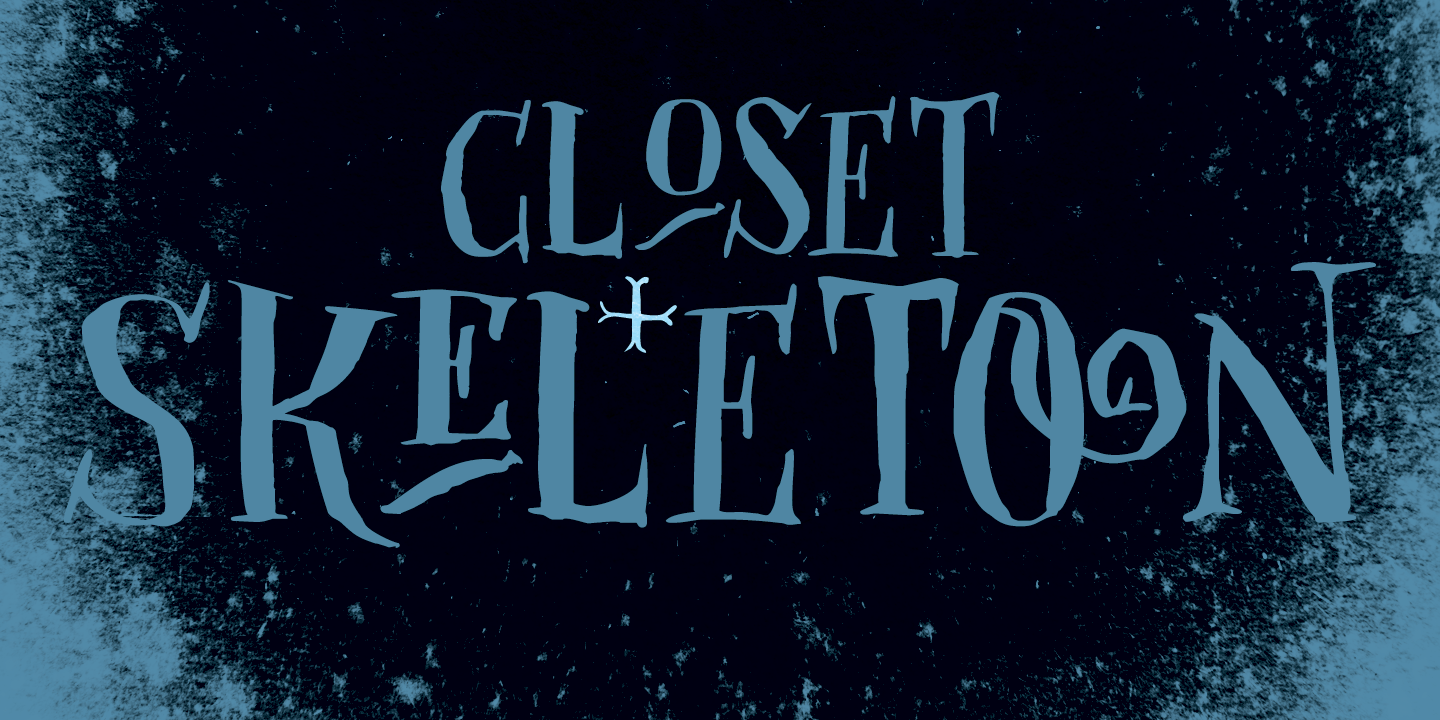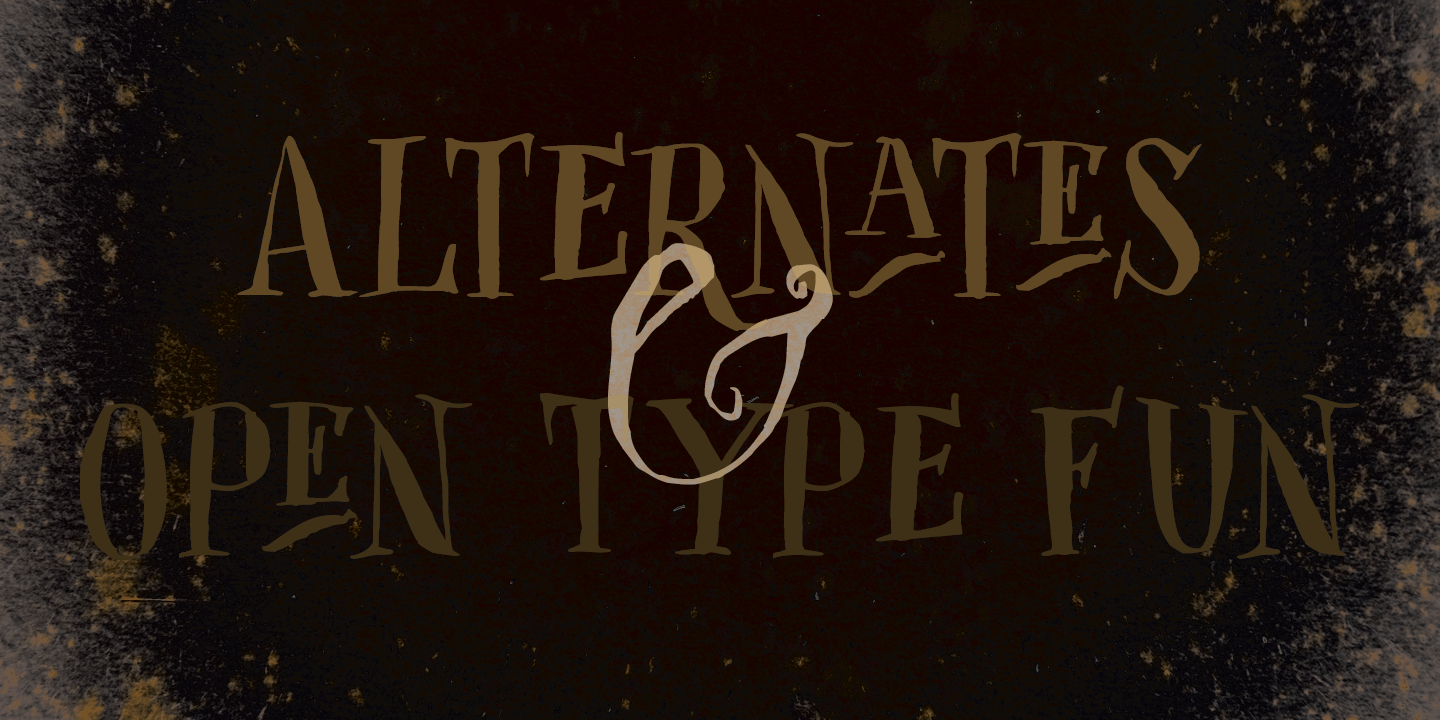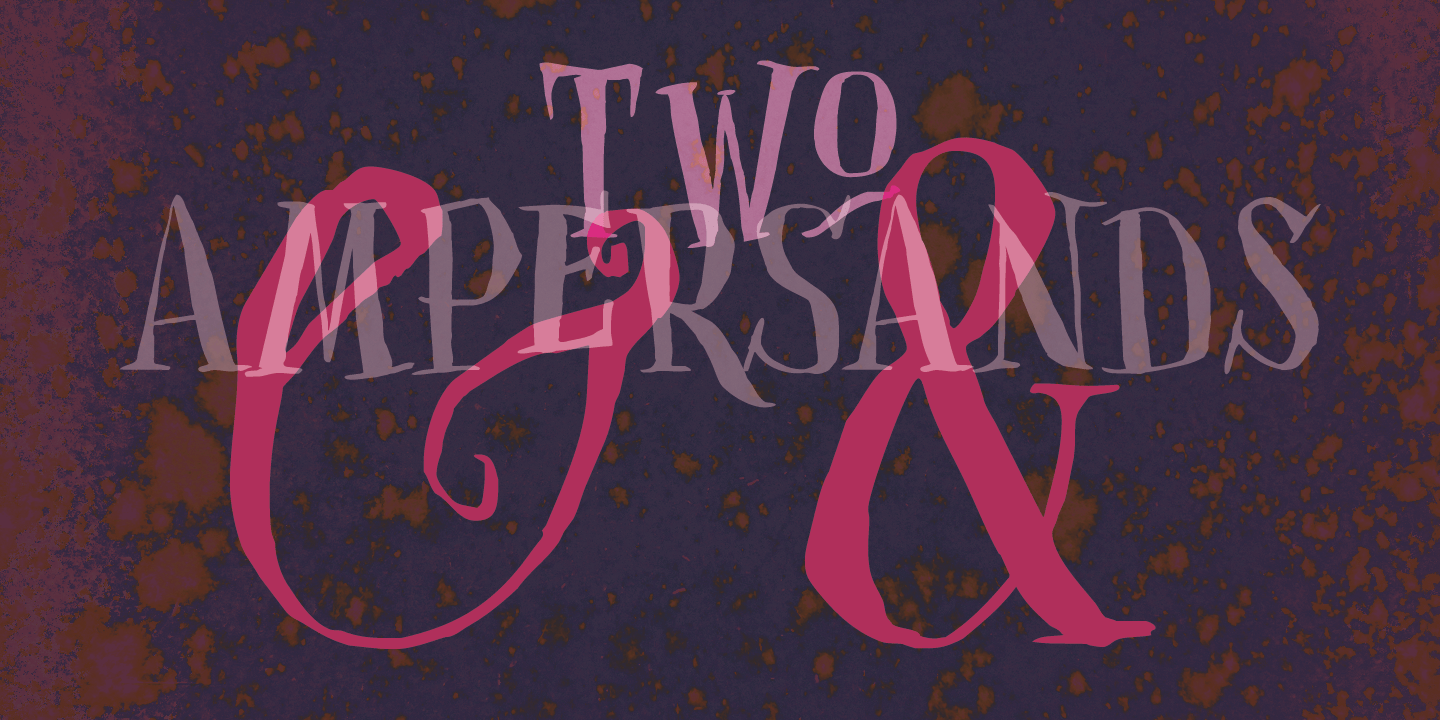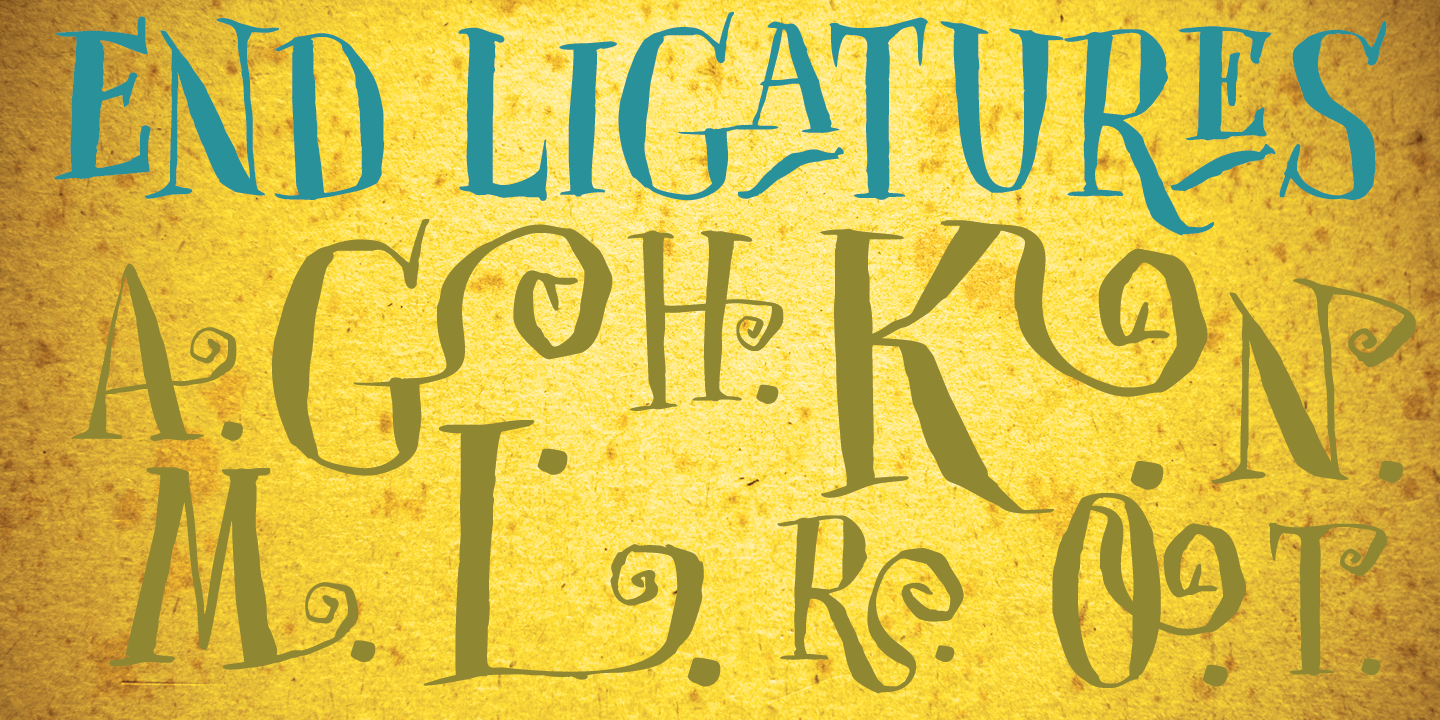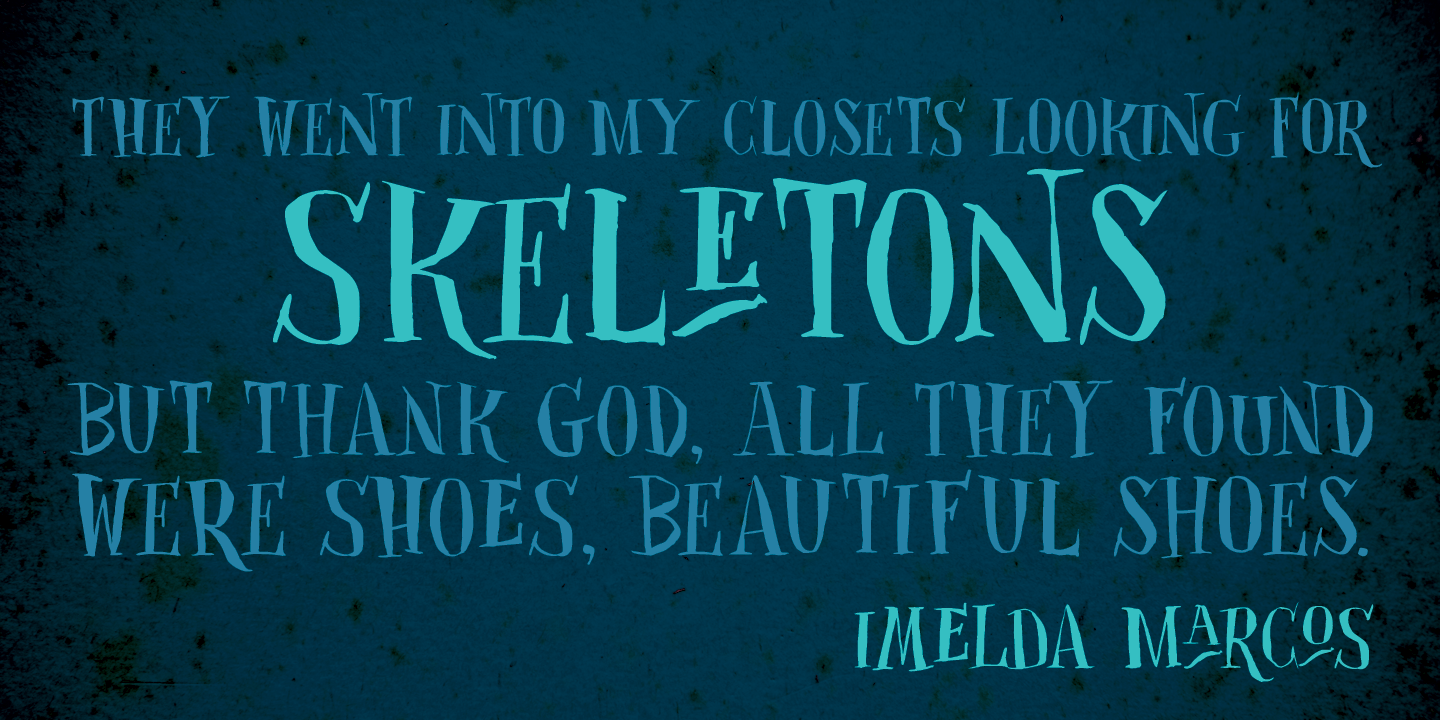
Closet Skeleton
Some time ago I stumbled upon a little book called 'De Sprookjeshoorn' ('Horn of Fairy Tales') by Anton Eijkens (1920 - 2012). It was published in 1946 and contains several authentic and unique fairy tales - unfortunately unreadable to modern children, as the language used is out of date. What caught my eye was the handwritten font on the cover of the booklet. Closet Skeleton is a fairytale font inspired by the one I found on the cover of De Sprookjeshoorn. It comes with several curly alternates and some end-ligatures as well. I added an 'old fashioned' ampersand and a modern one, so you can choose which one to use. Apart from that, Closet Skeleton comes with a closet choc-a-block full of diacritics.